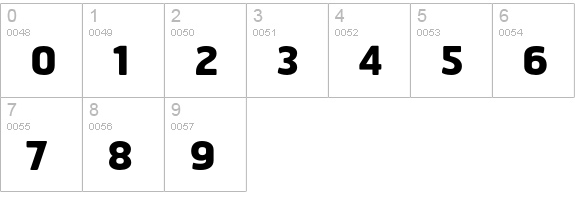
Hermes-Bold is a strong, high-contrast variant in the Hermes typeface family \xE2\x80\x94 well suited to headlines, attention-grabbing titles, and strong calls-to-action.
Introducing Hermes-Bold font, a modern and stylish typeface that exudes confidence and sophistication. With its bold and impactful design, Hermes-Bold is perfect for headlines, titles, logos, and more. This versatile font is sure to make a statement in any design project. The best part? Hermes-Bold is available for free download at FontsMarket.com. Now you can add a touch of elegance to your creations without breaking the bank. Don't miss out on this opportunity to enhance your designs with the sleek and dynamic Hermes-Bold font. Download it today and unleash your creativity!